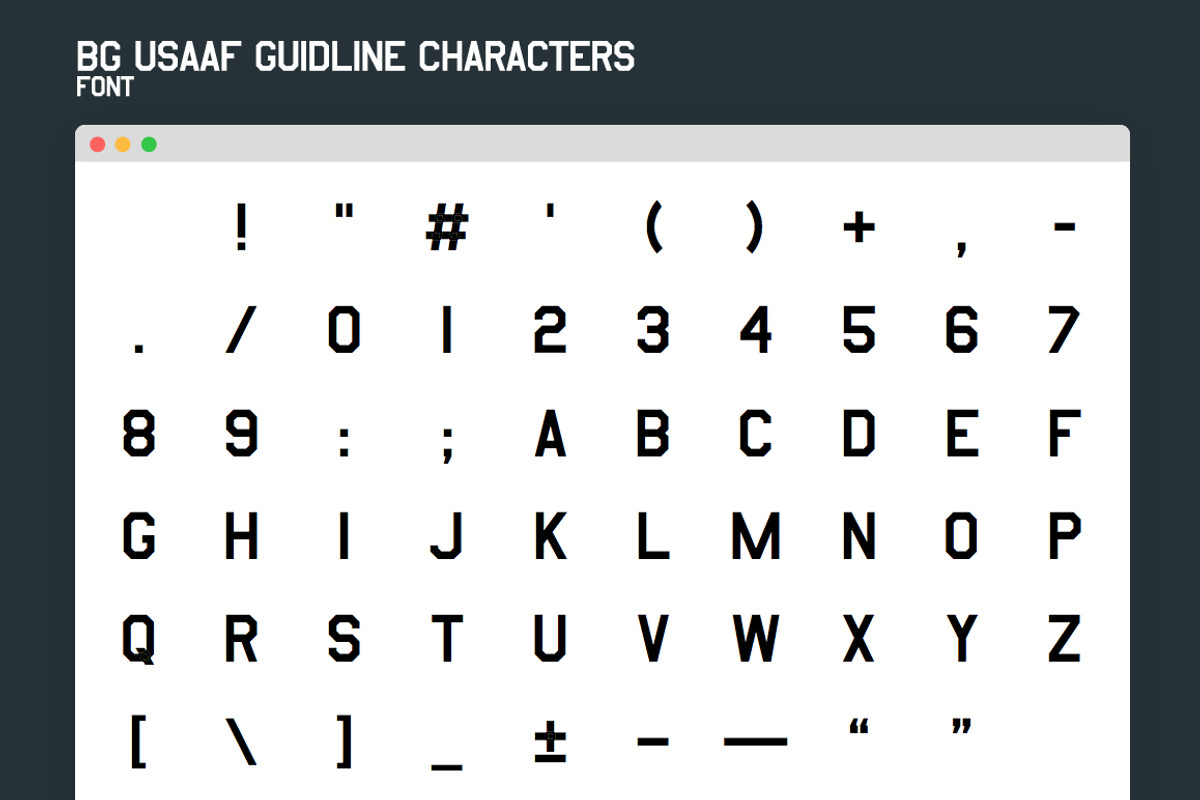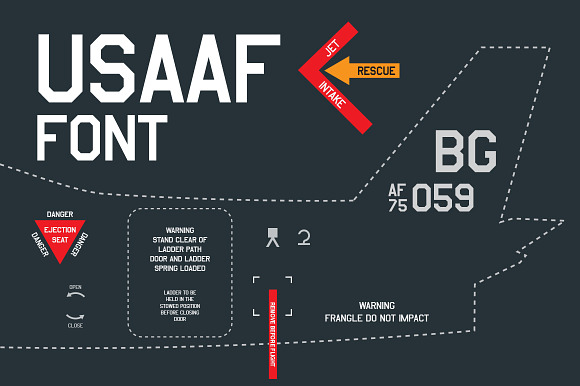
USAAF Air Force Font
The font is created from artifacts of the chronicle of various real aircraft.
Why USAAF Air Force Font is worth a look
USAAF Air Force Font by theungsys fits naturally into Branding, posters, packaging, typography.